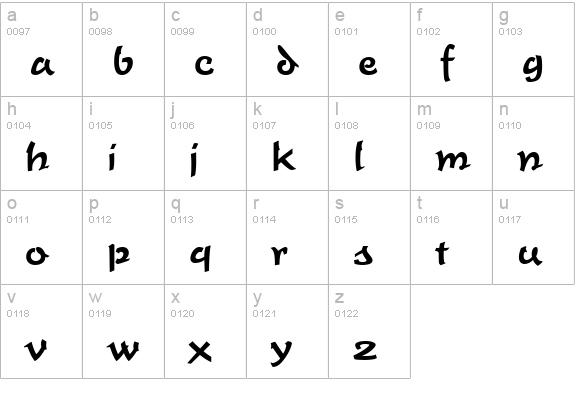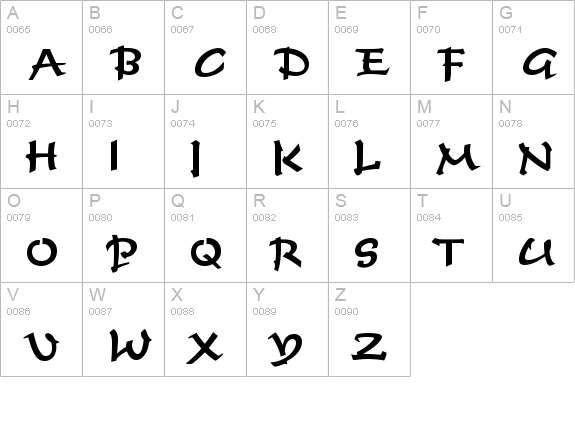
TimeScrDMed Font Details
Introducing TimeScrDMed, a captivating and unique font that will add a touch of elegance to your designs. This font is perfect for those seeking a blend of modern sophistication and timeless appeal. With its meticulously crafted letterforms, TimeScrDMed is sure to make a lasting impression on any project. Not only does TimeScrDMed possess a distinct charm, but it also offers the incredible advantage of being free. Yes, you read that right! This font is freely available to download at FontsMarket.com, allowing you to effortlessly elevate your creative endeavors without any cost. TimeScrDMed is a versatile typeface that adapts flawlessly to various design projects. Whether you're designing a logo, creating a stunning website, or crafting eye-catching promotional materials, this font will effortlessly enhance your work. Its balanced proportions and carefully designed curves make it both visually appealing and highly readable, guaranteeing a seamless reading experience across different mediums. Featuring a wide range of glyphs and alternate characters, TimeScrDMed grants you the freedom to unleash your creativity and customize your designs to perfection. Its extensive character set includes uppercase and lowercase letters, numbers, punctuation marks, and special symbols, ensuring that you have all the tools you need to create captivating visuals. With its timeless beauty and generous availability, TimeScrDMed font is a must-have for any designer, whether you're a seasoned professional or just starting your creative journey. Download it today from FontsMarket.com and let your imagination soar. Embrace the opportunity to effortlessly elevate your designs with this free font, and leave a lasting impression on your audience.